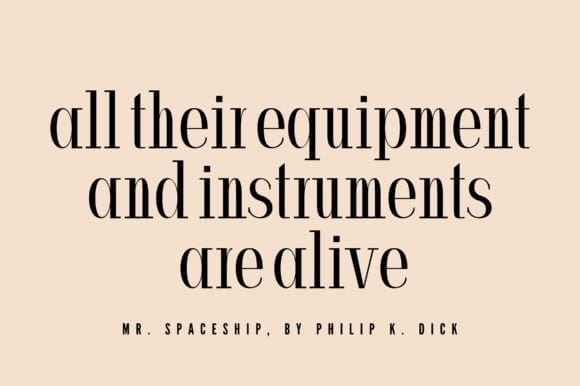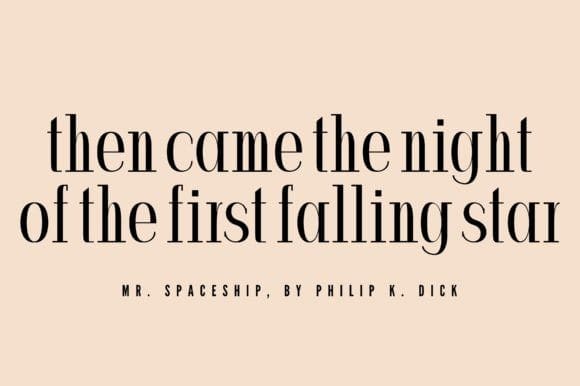
Adora Font
Adora Font, the epitome of modern elegance in slab serif typography. With clean lines and minimalist design, this font is the perfect choice for anyone looking to elevate their branding or design projects.
Adora’s unique blend of sophistication and simplicity makes it an excellent choice for everything from logos and headlines to packaging and web design. Its sleek and refined appearance exudes professionalism and is sure to leave a lasting impression on your audience.
Crafted with precision and care, Adora boasts a range of weights and styles to ensure versatility and flexibility in your designs. This typeface is a timeless addition to any designer’s toolkit, allowing you to create stunning and impactful designs effortlessly.
Whether you’re designing for a high-end luxury brand or a modern tech startup, Adora is the ideal choice to convey a sense of refinement and sophistication. Try it today and experience the power of minimalist design in action.